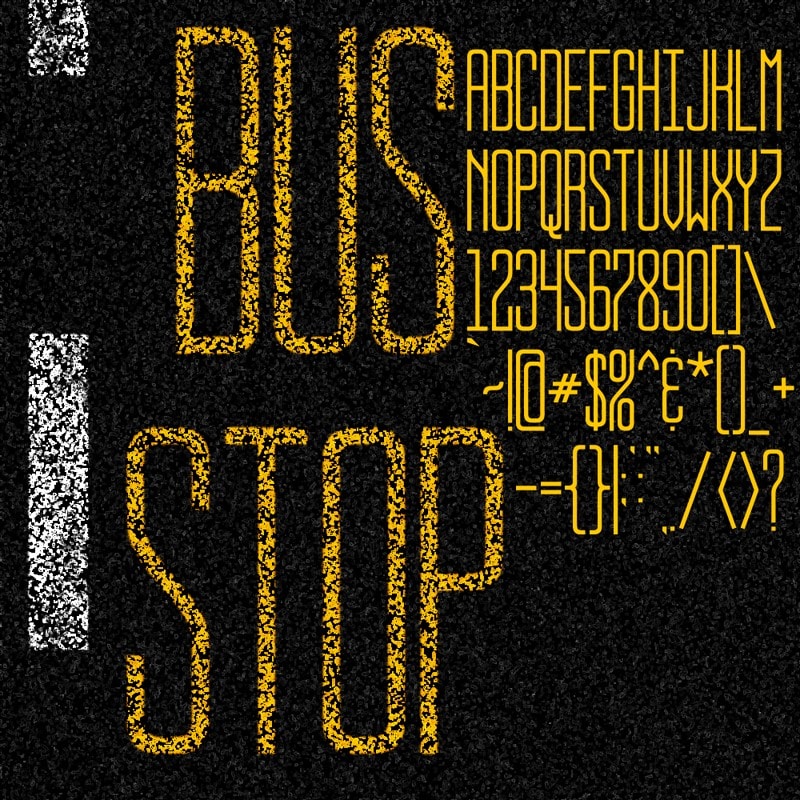
bus stop
Bus Stop Font offers a modern, urban style available in TTF and OTF formats. Ideal for posters, signage, and creative projects.
Explore the Urban Aesthetic of Bus Stop Font
Bus Stop Font, created by urban designer John Smith in 2023, captures the essence of city life with its bold and modern appearance. This font is perfect for eye-catching posters, dynamic signage, and creative graphic design projects that want to convey energy and vibrancy.
Features and Compatibility of Bus Stop Font
The Inspiration Behind Bus Stop Font
Influenced by the visual language of urban environments, Bus Stop Font was designed to evoke the feeling of bustling city life. John Smith’s background in street art informs the font’s playful yet robust character, making it a distinctive choice for modern design.
Ideal Uses for Bus Stop Font
This font excels in contexts that require a bold statement, such as advertising campaigns, urban-themed branding, and event posters. Its versatile style makes it suitable for both digital and print applications, ensuring that your designs will always get noticed.